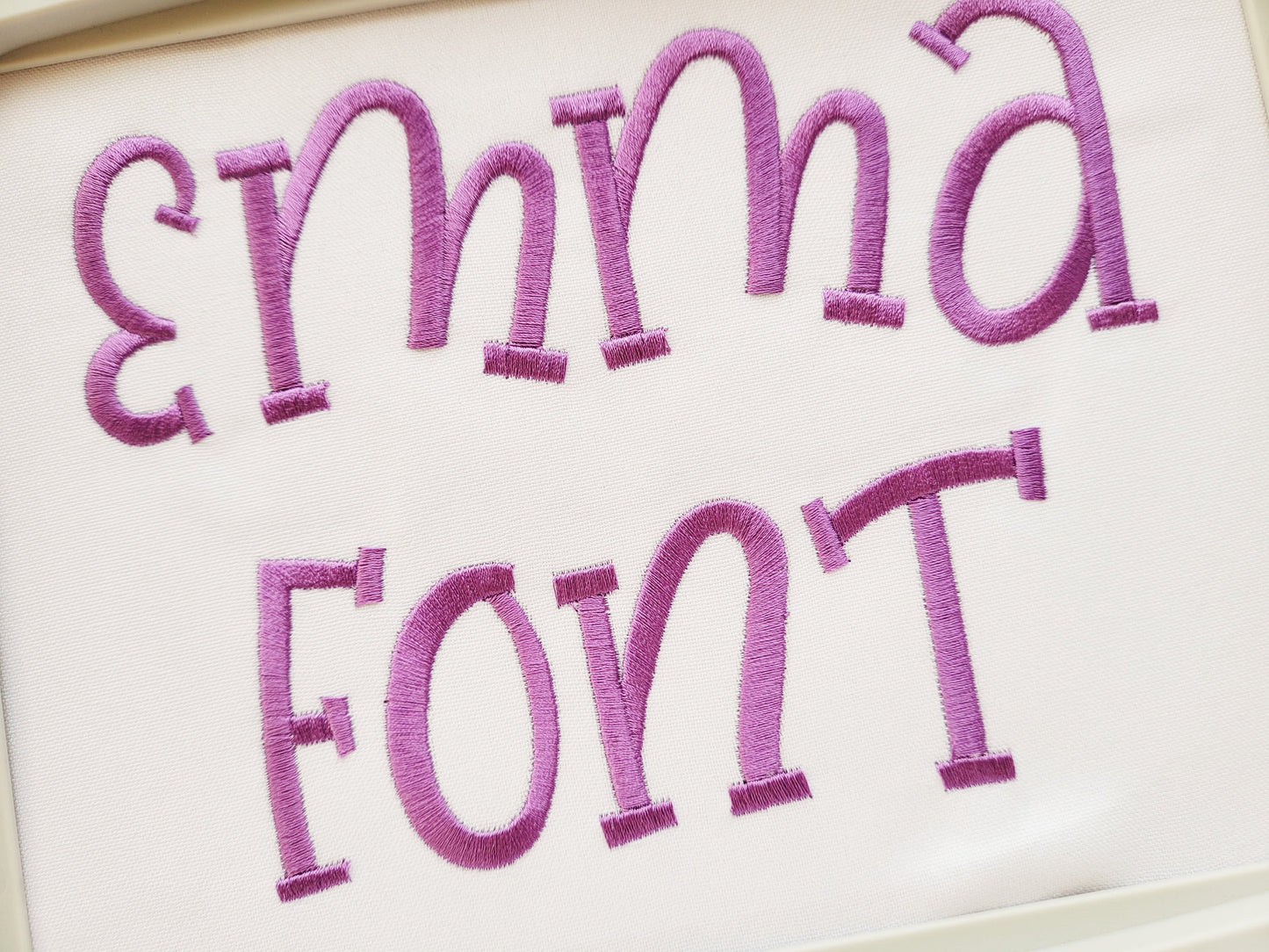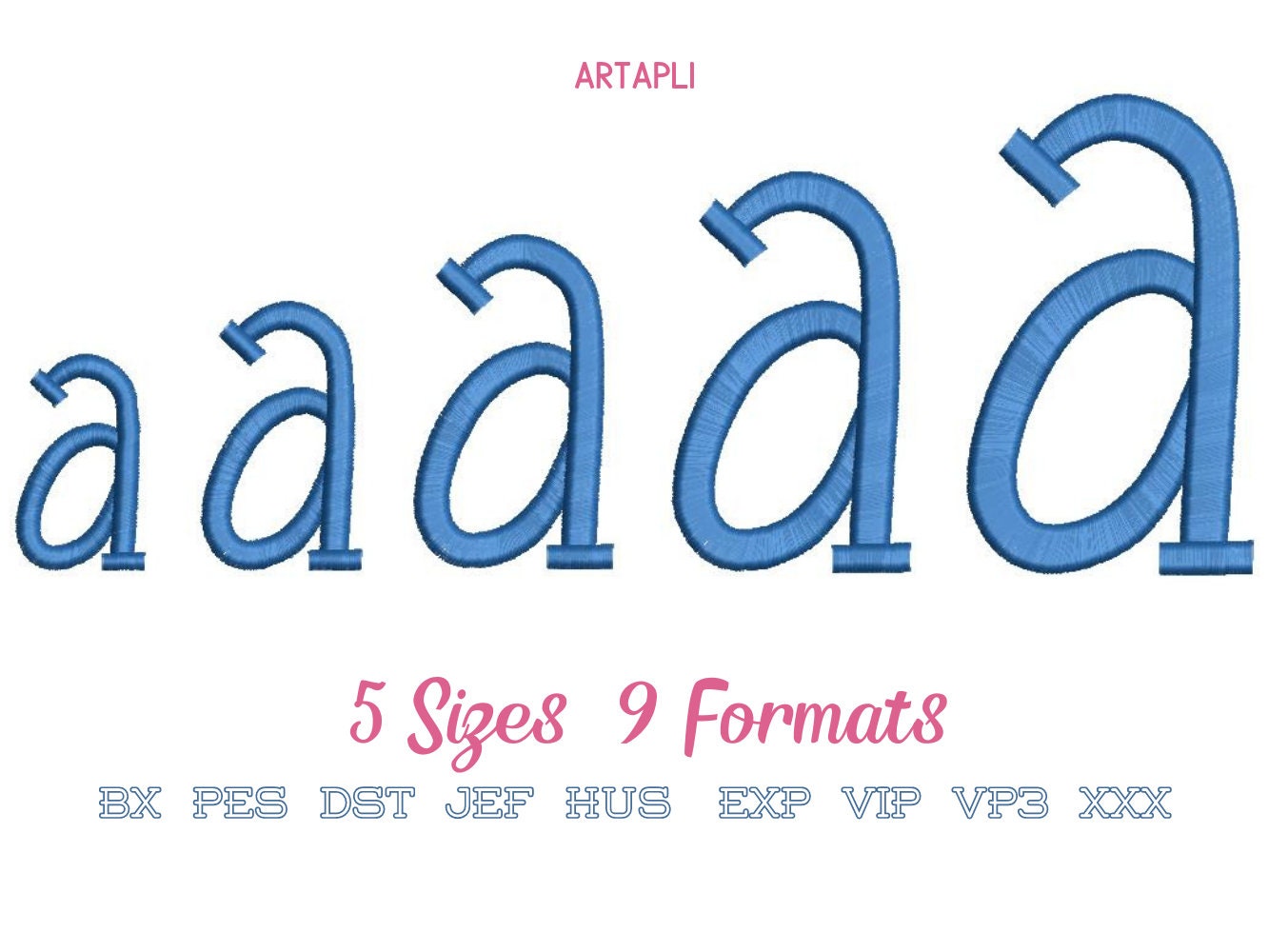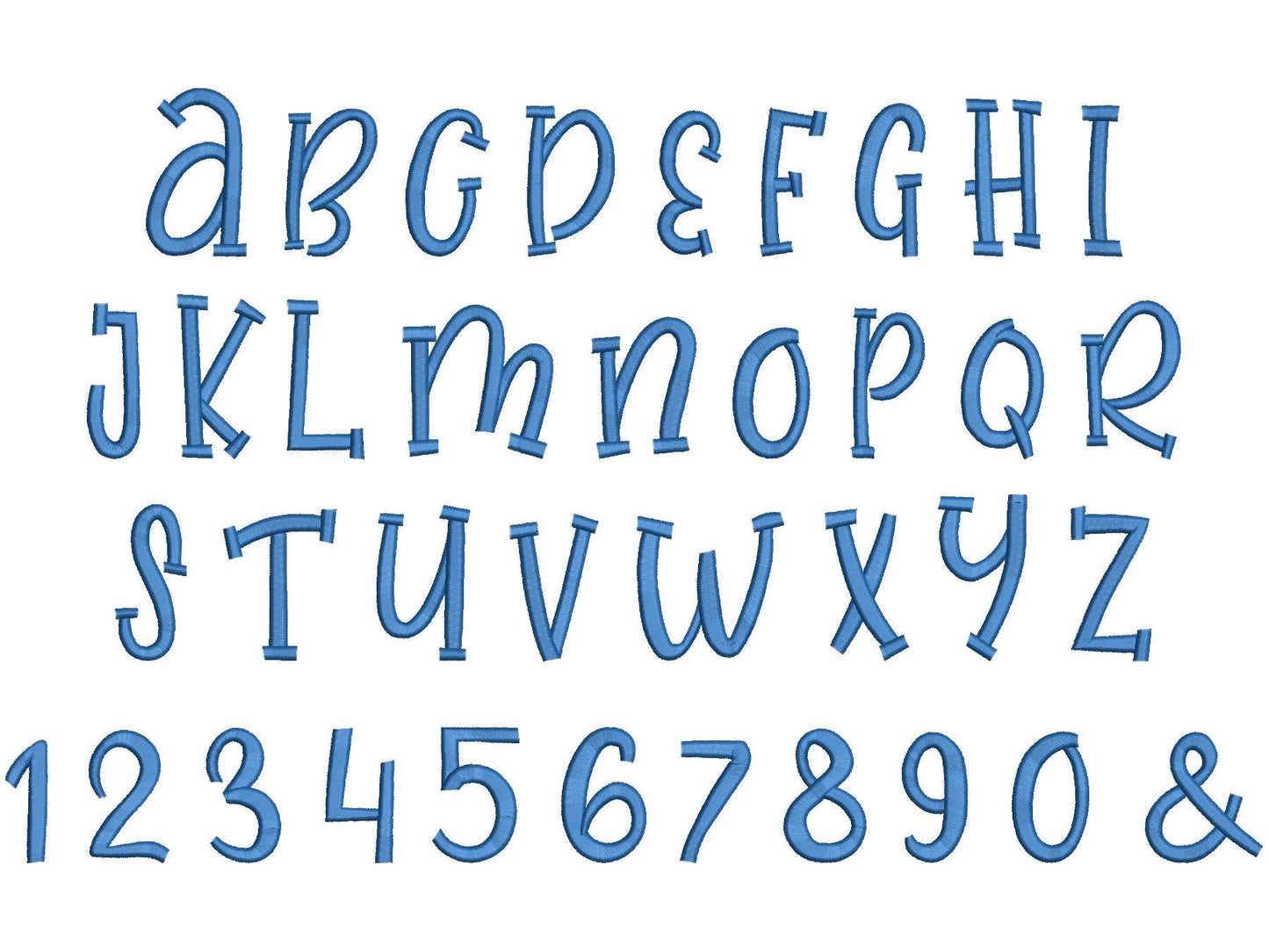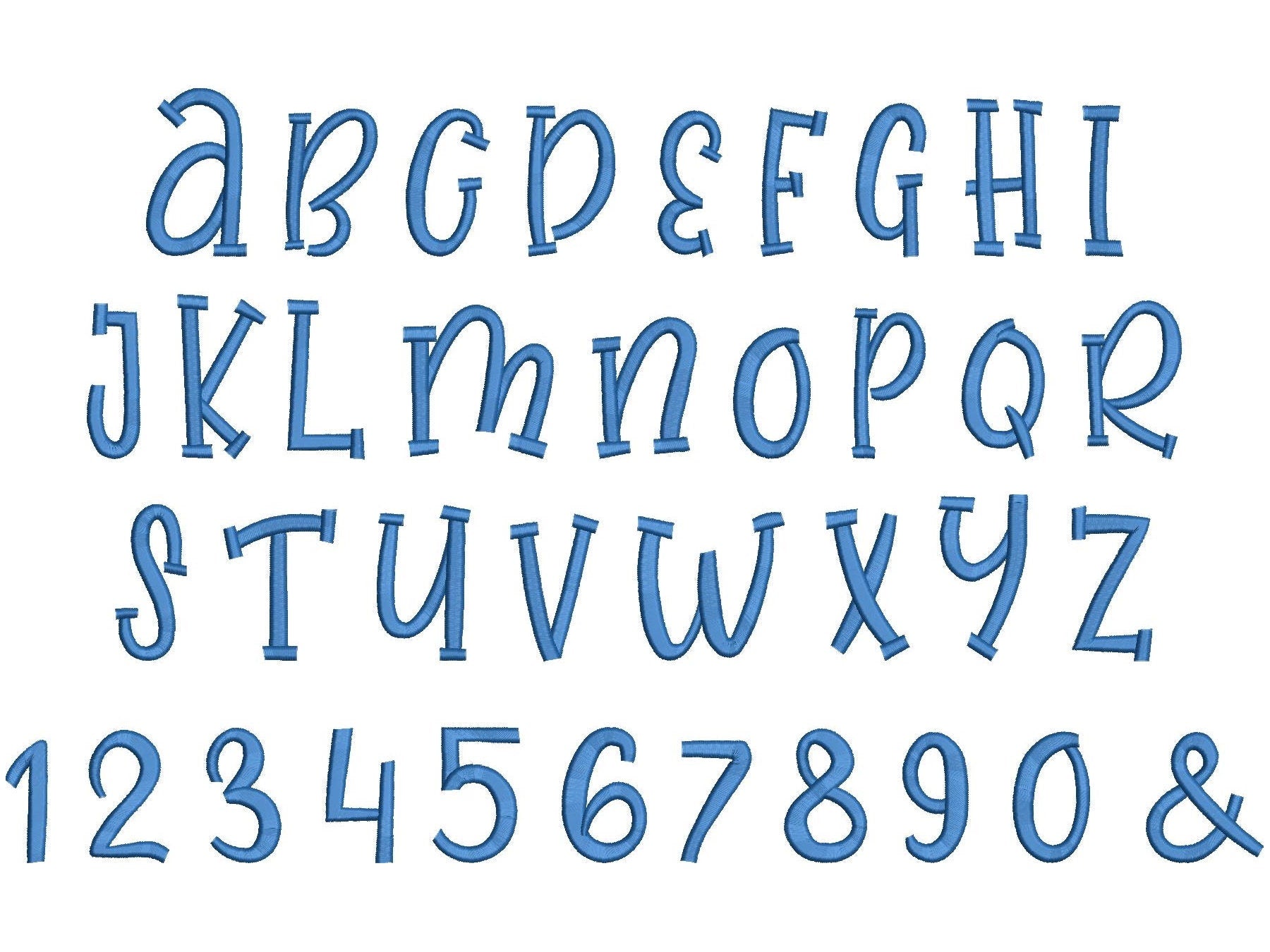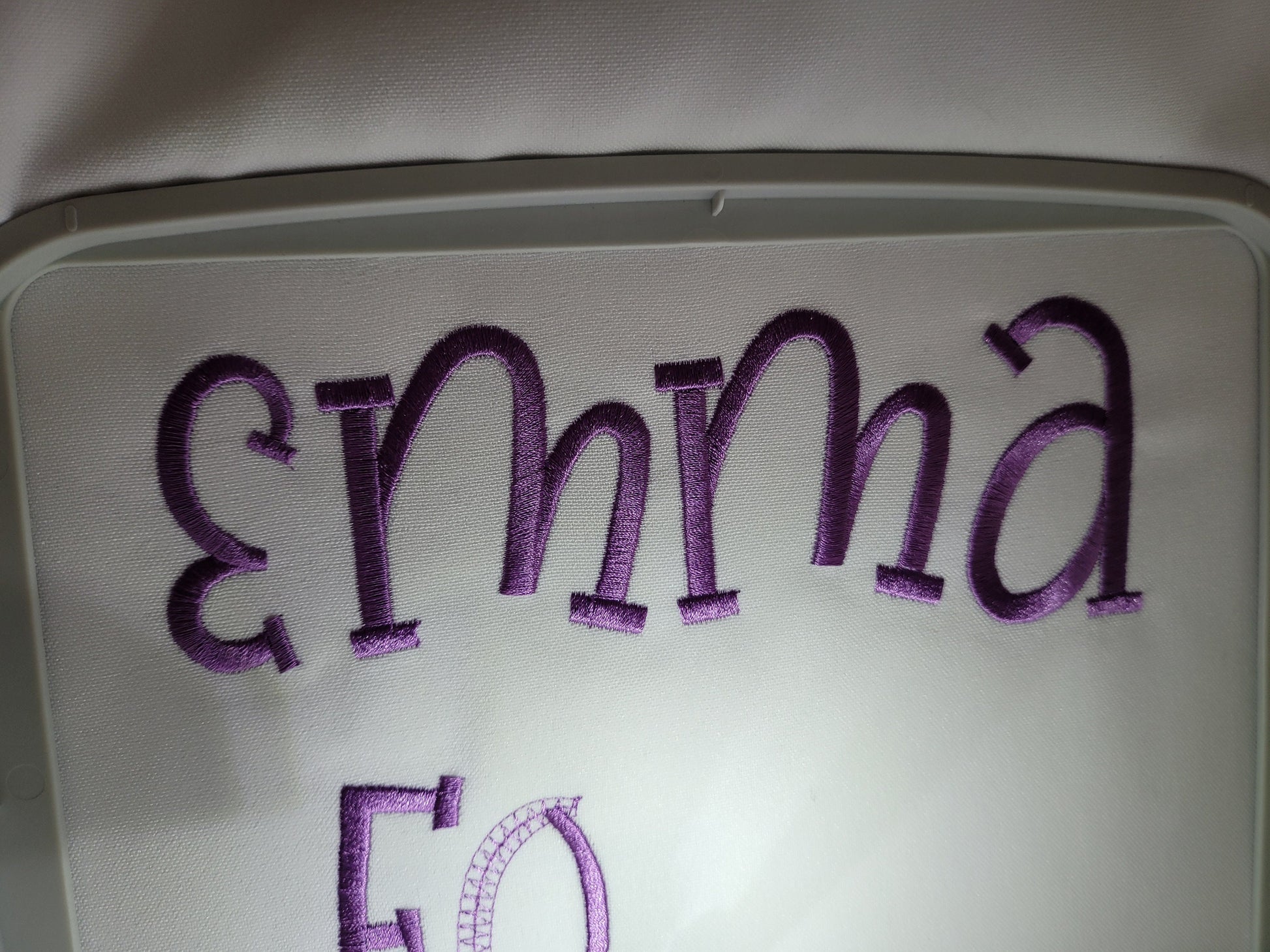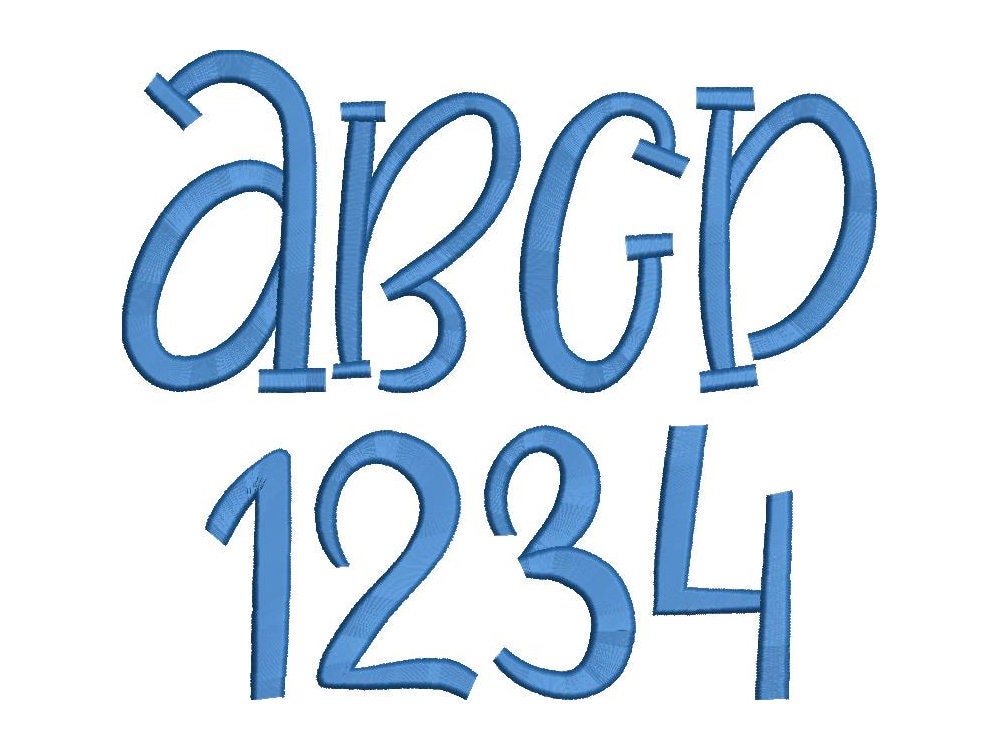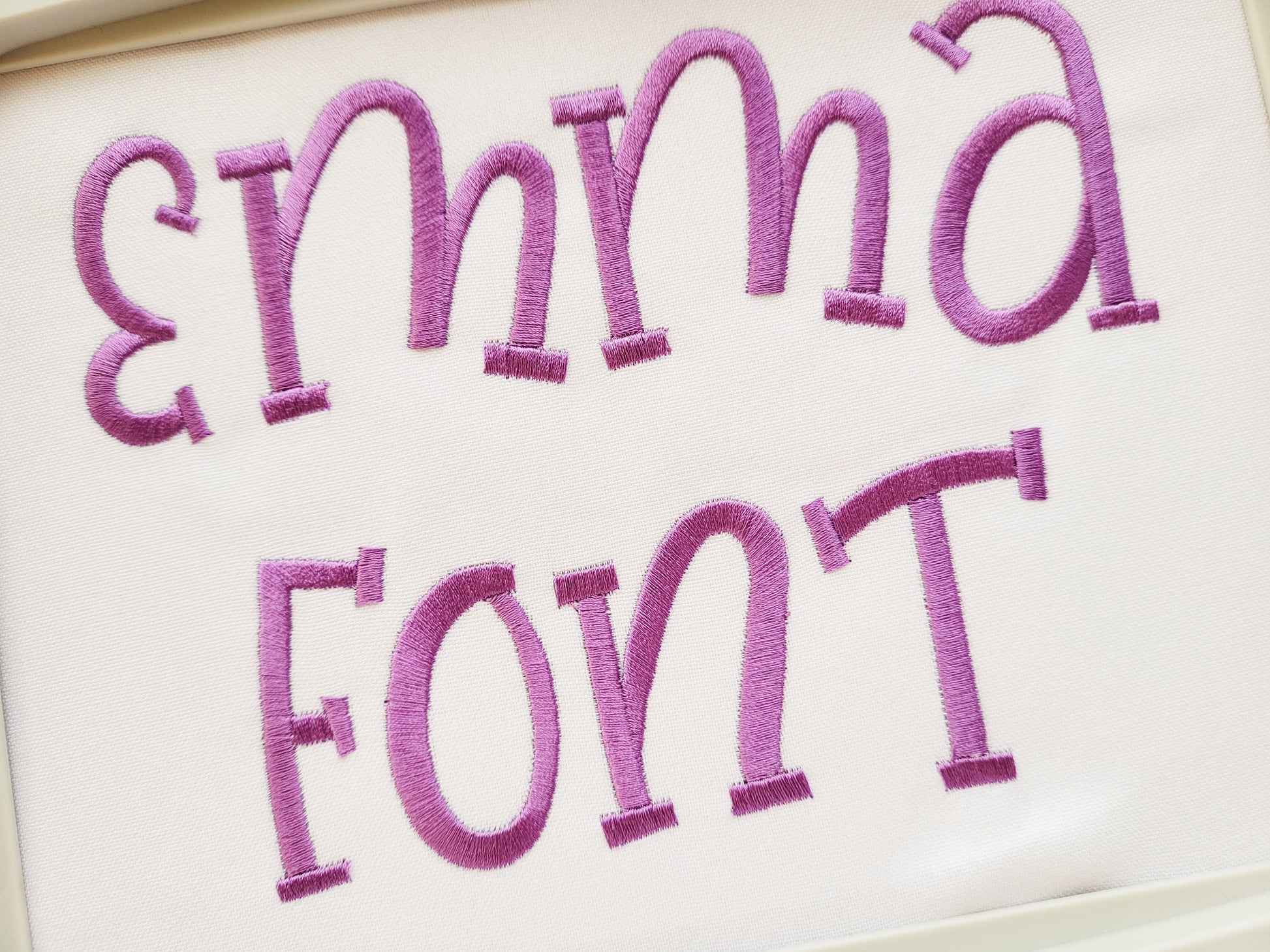
Best Satin Stitch Font
Or click to open the linkA playful satin stitch font for kids' names and monograms. Bright on shirts, bags and blankets.
The letters come in five sizes: 1.4, 1.8, 2.2, 2.6 and 3.1 inches. Smooth, full satin stitch letters. Includes uppercase letters A to Z, numbers 0 to 9 and an ampersand.
- Playful satin stitch font
- Uppercase A to Z, numbers 0 to 9, ampersand
- 5 sizes, 1.4 to 3.1 in